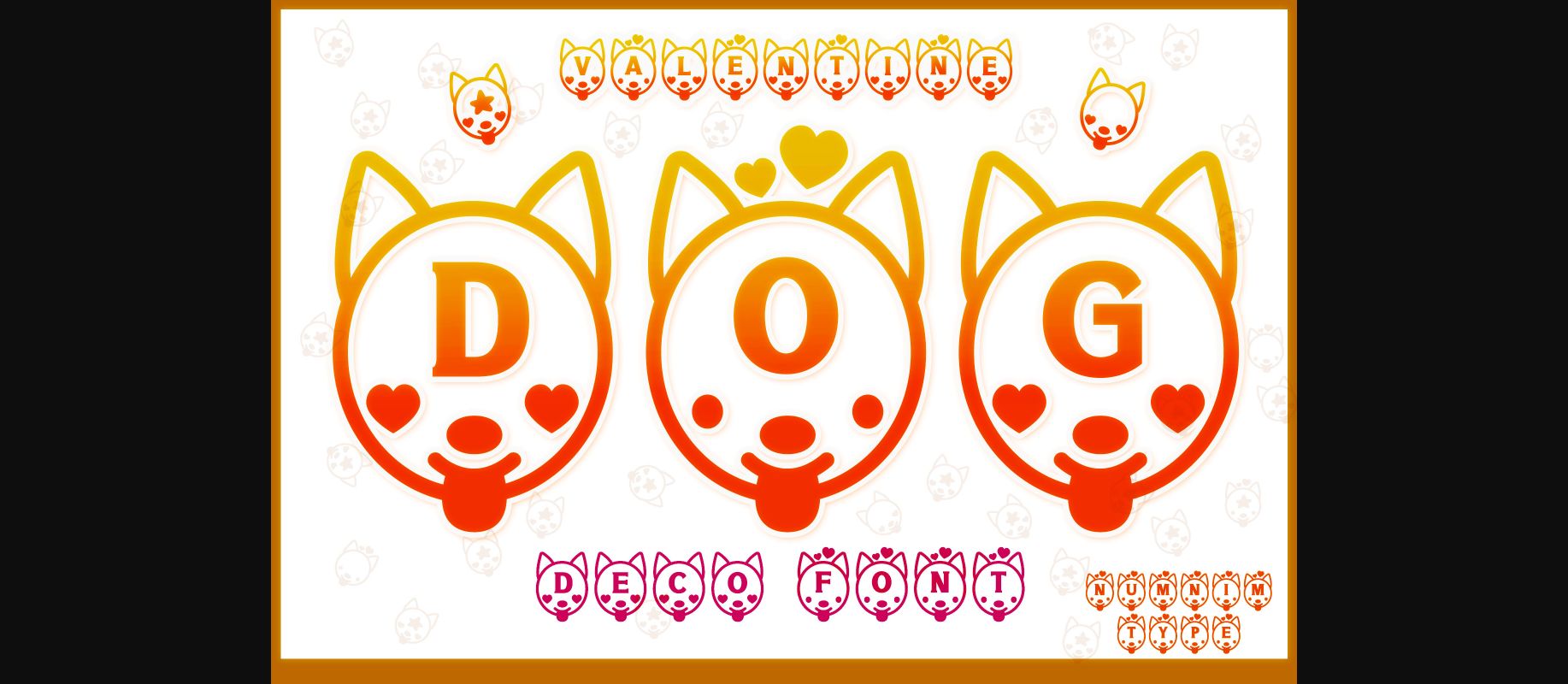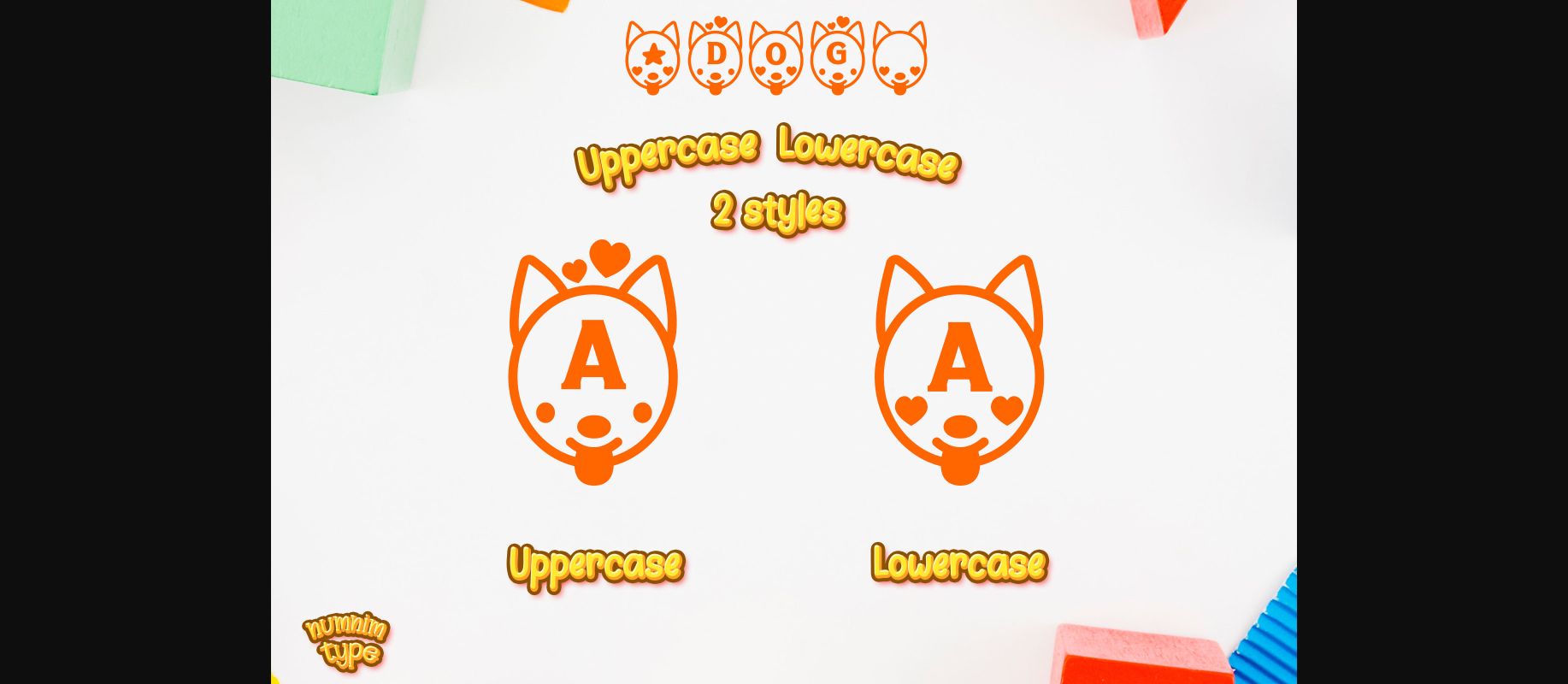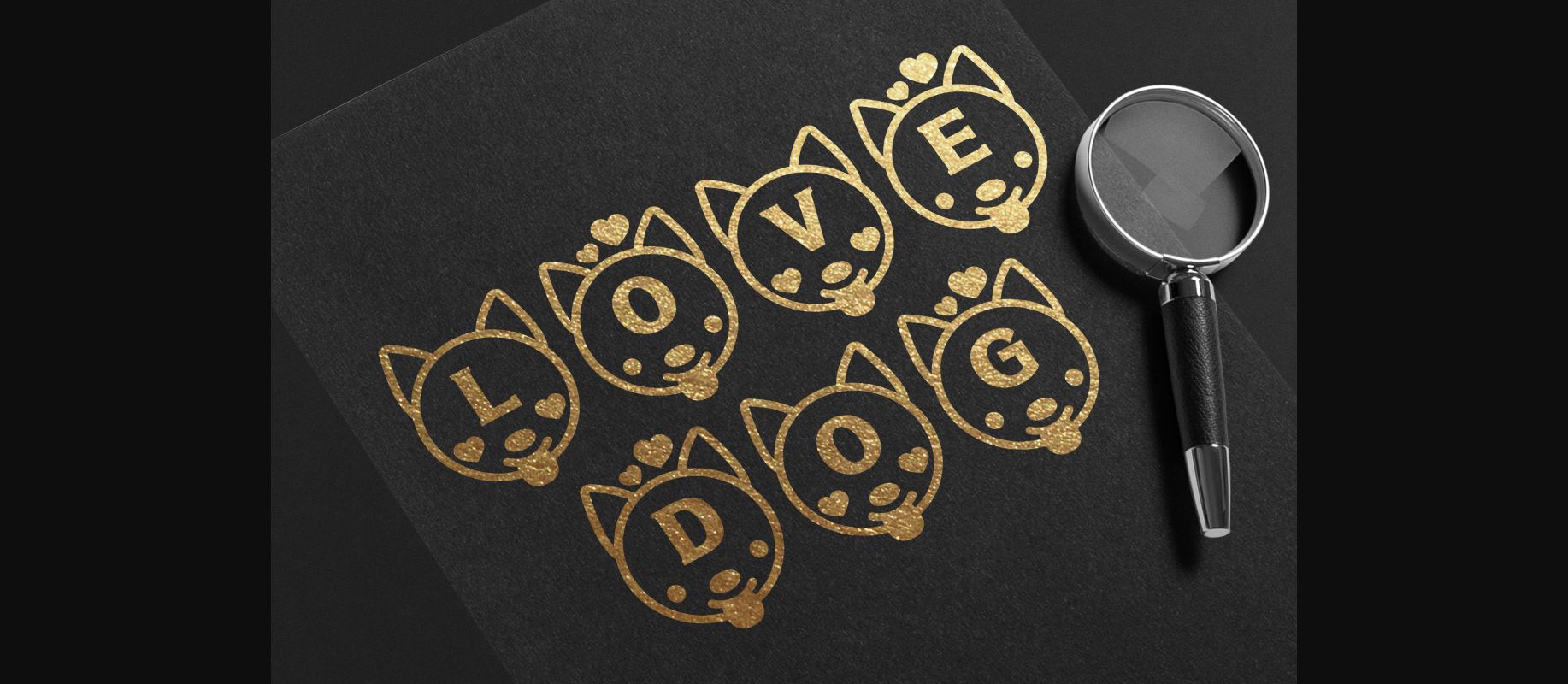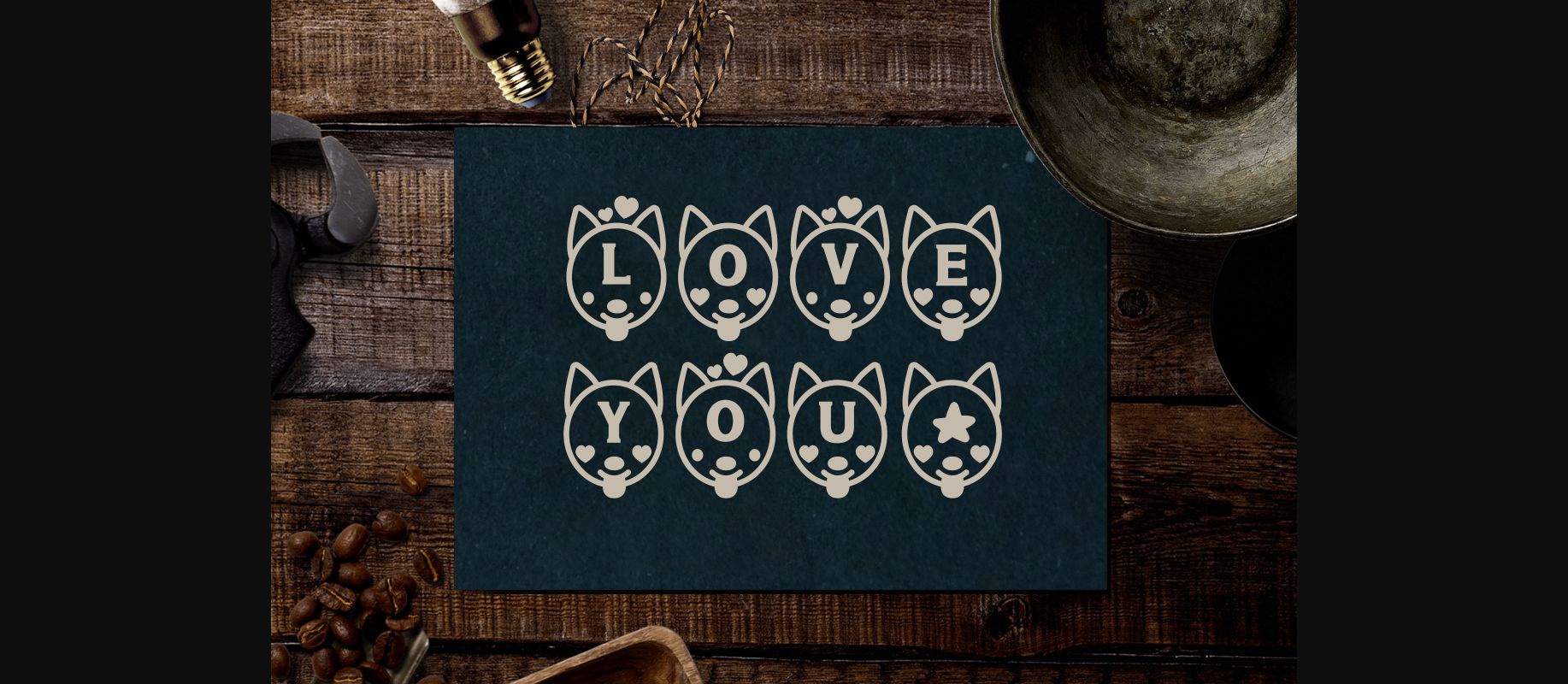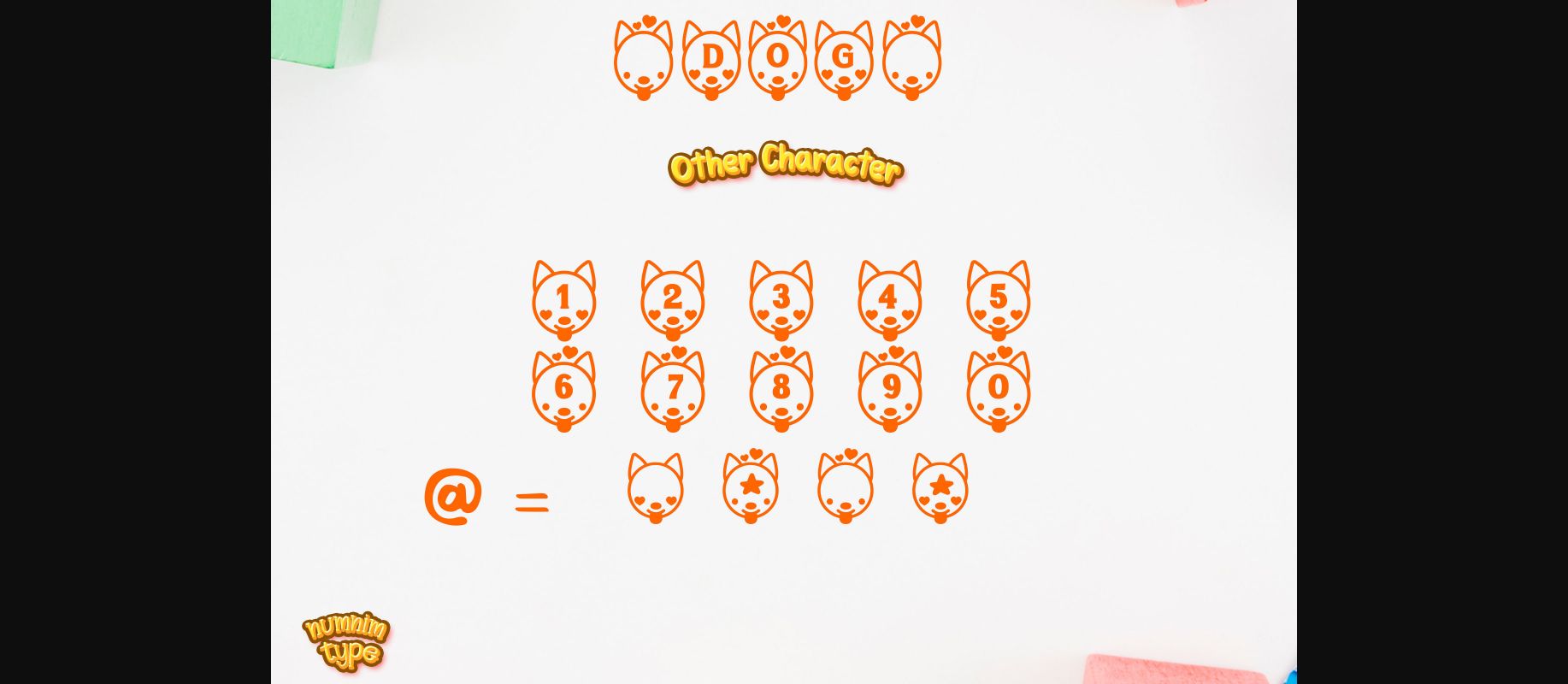
About Valentine Dog Font
Valentine Dog is a cute and uniquely crafted decorative font. Its fun and playful characters make it the perfect font for stickers, mugs, t-shirts, ornaments, Valentine event cards, and more! This font is PUA encoded which means you can access all glyphs and swashes with ease!